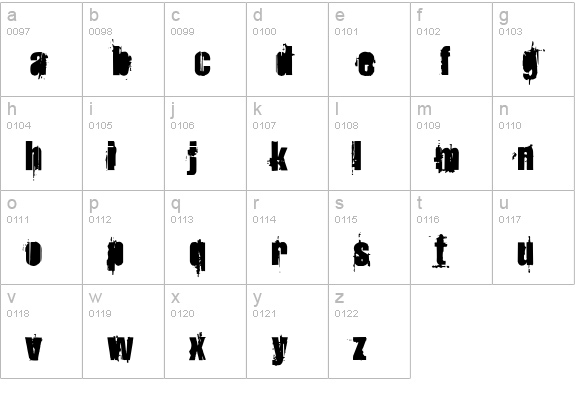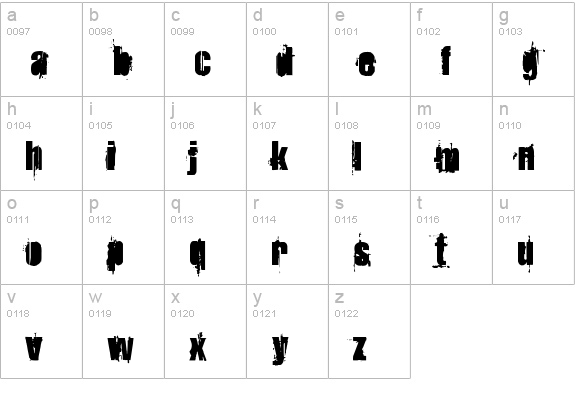
StrokeyBacon Font Details
StrokeyBacon font is a whimsical and playful typeface that exudes fun and creativity. With its unique strokes and quirky design, this font is perfect for adding a touch of whimsy to any project. Whether you're working on a poster, logo, or social media graphic, StrokeyBacon font is sure to make a statement. The best part? StrokeyBacon font is completely free to download at FontsMarket.com! Simply visit the website and get instant access to this charming and versatile font. Don't miss out on the opportunity to add a fun and unique touch to your designs with StrokeyBacon font.